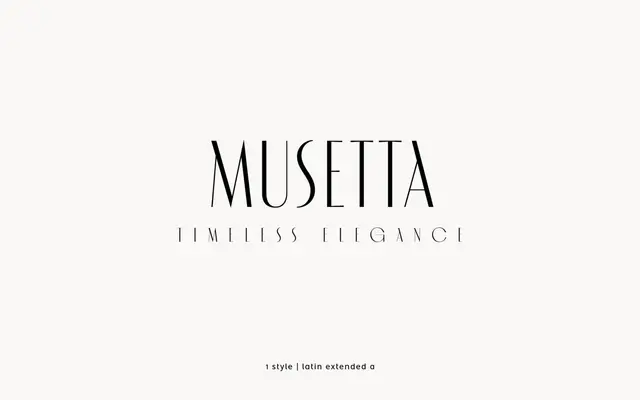
Musetta
atipo foundry · Raul Garcia del Pomar, Ismael Gonzalez · 2016
A high-contrast display serif by atipo in a single Regular cut, drawn in the spirit of fashion-magazine didones for editorial and luxury display.
A high-contrast display serif by Raul Garcia del Pomar and Ismael Gonzalez at atipo foundry, offered as a single Regular weight. Musetta sits in didone display territory with sharp terminals, narrow proportions and pronounced thick-thin contrast, and includes stylistic alternates, fractions, superiors and ordinals in the OpenType layer. Suited to fashion, beauty, editorial and luxury display where a sharp, theatrical serif voice is wanted.
A high-contrast display serif with sharp terminals and narrow proportions, drawn in the spirit of fashion-magazine didones. A single Regular weight focused on display use rather than running text.